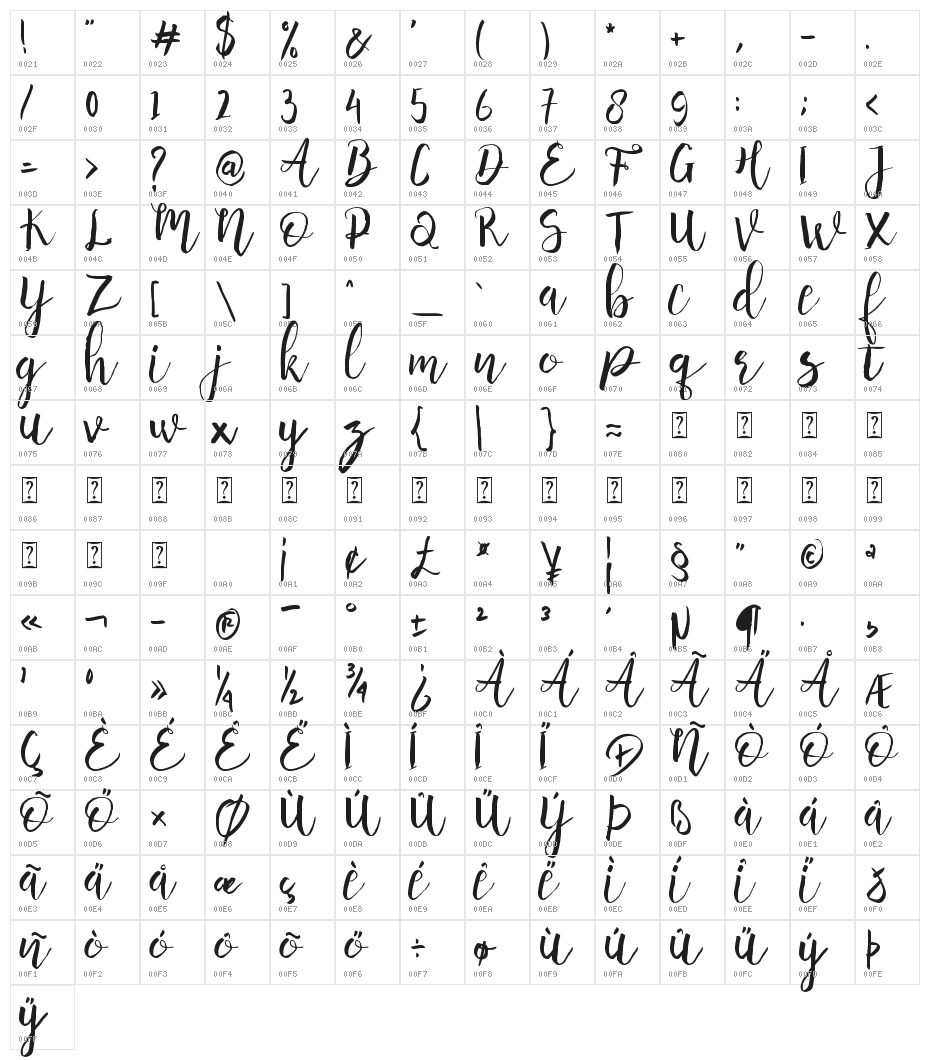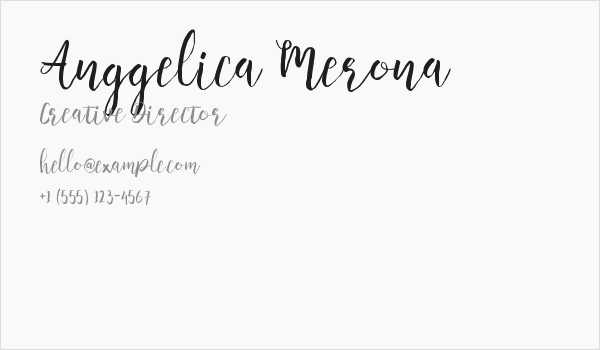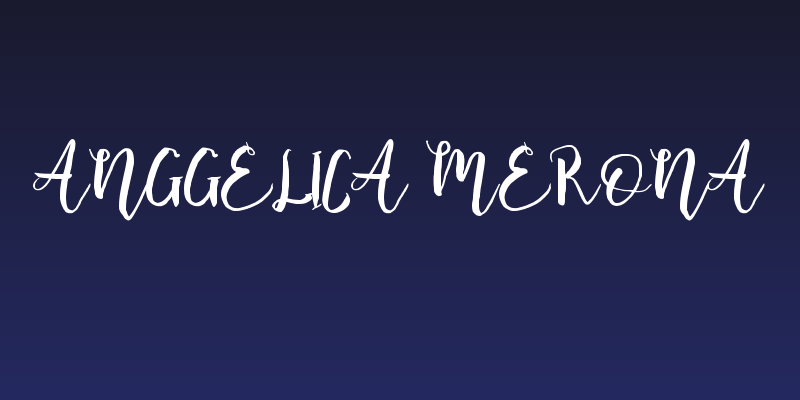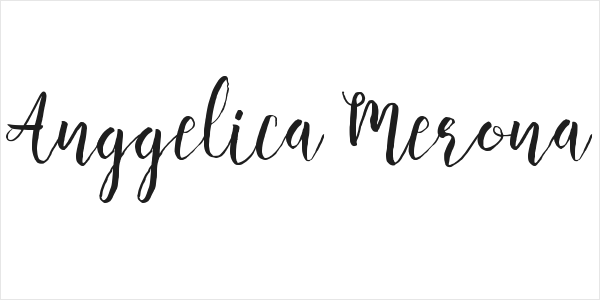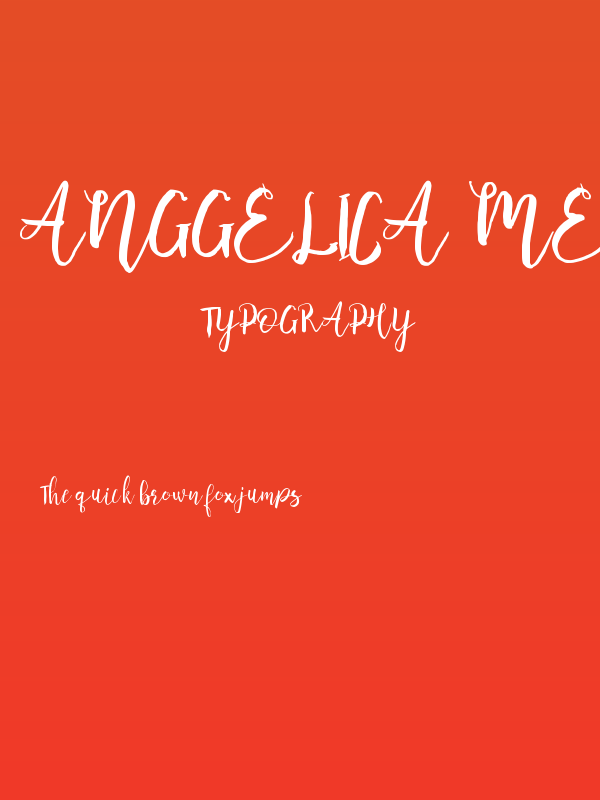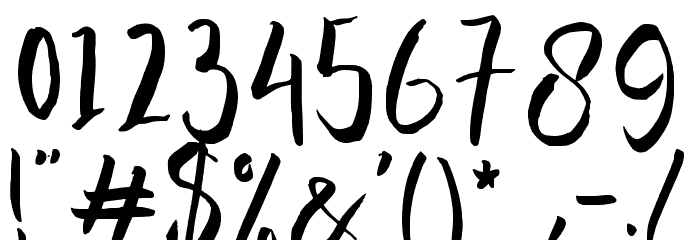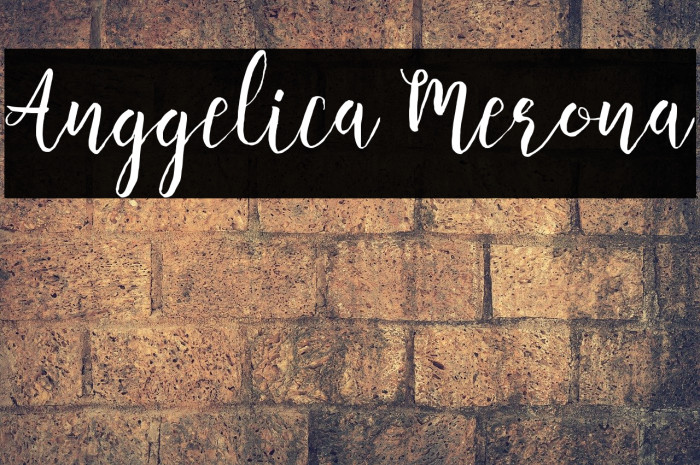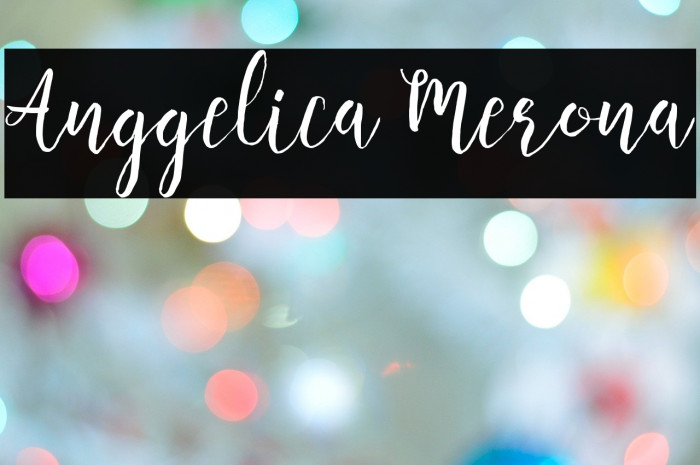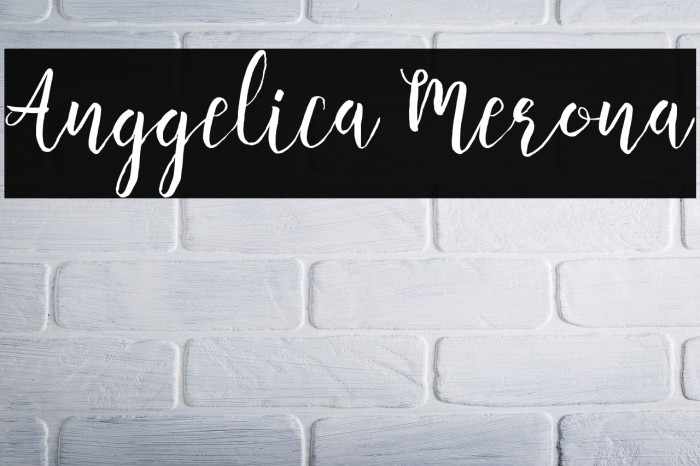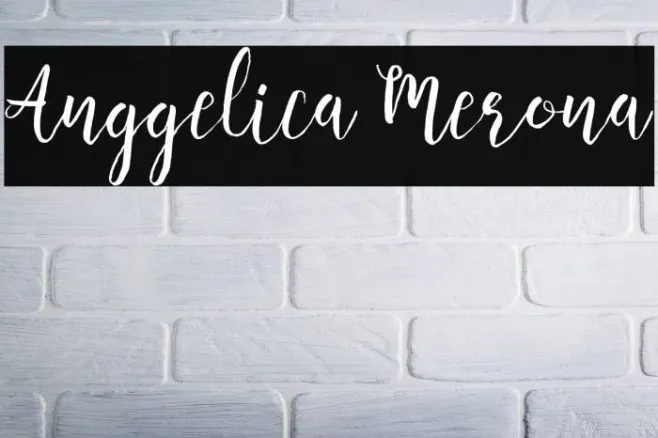
Anggelica Merona Font
Anggelica Merona Description
This font features a lively and expressive handwritten style, characterized by its fluid and dynamic strokes. The uppercase letters exhibit a playful yet elegant flair, with varying stroke widths that add a sense of movement and personality. The lowercase letters maintain this energetic style, with some letters featuring unique loops and curves that enhance the font's charm. The numerals are bold and clear, maintaining the handwritten aesthetic. Special characters are creatively designed, fitting seamlessly with the overall style. This font's artistic and free-flowing nature makes it ideal for projects that require a personal and creative touch.
| Use Case | Logos, Invitations, Creative projects |
| Proposed Projects | Ideal for wedding invitations, greeting cards, personal branding, and creative projects that require a personal touch. |